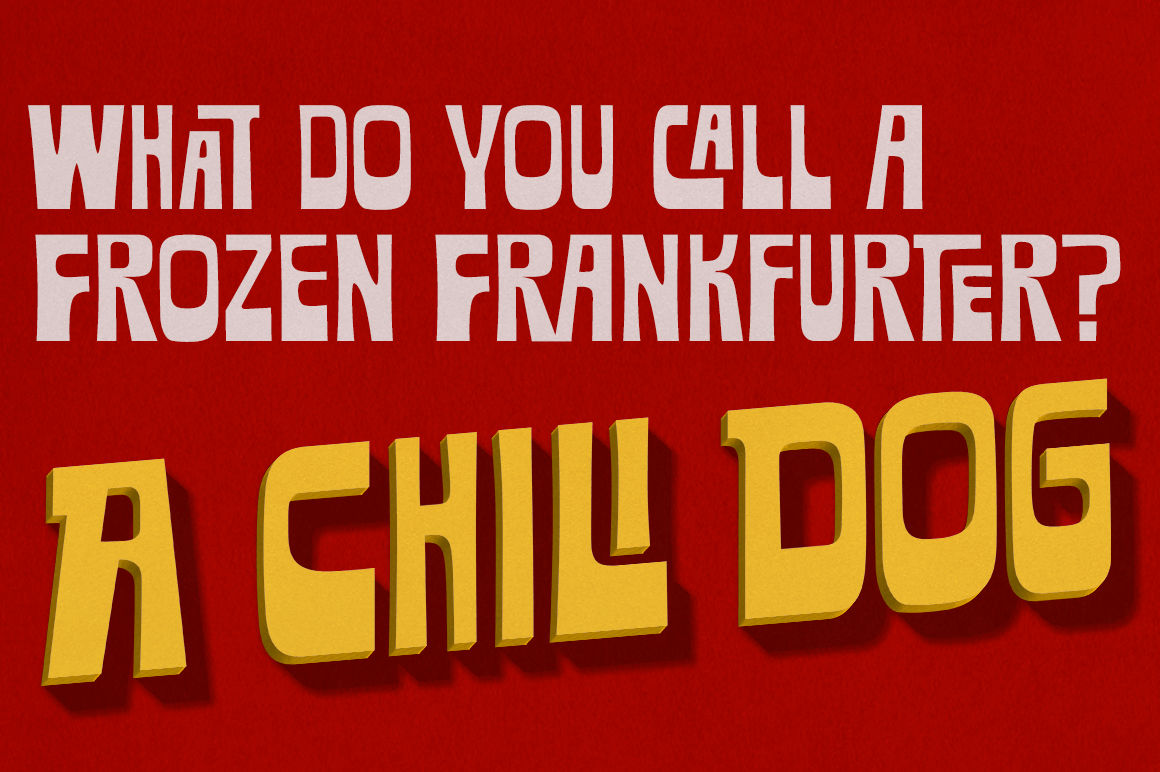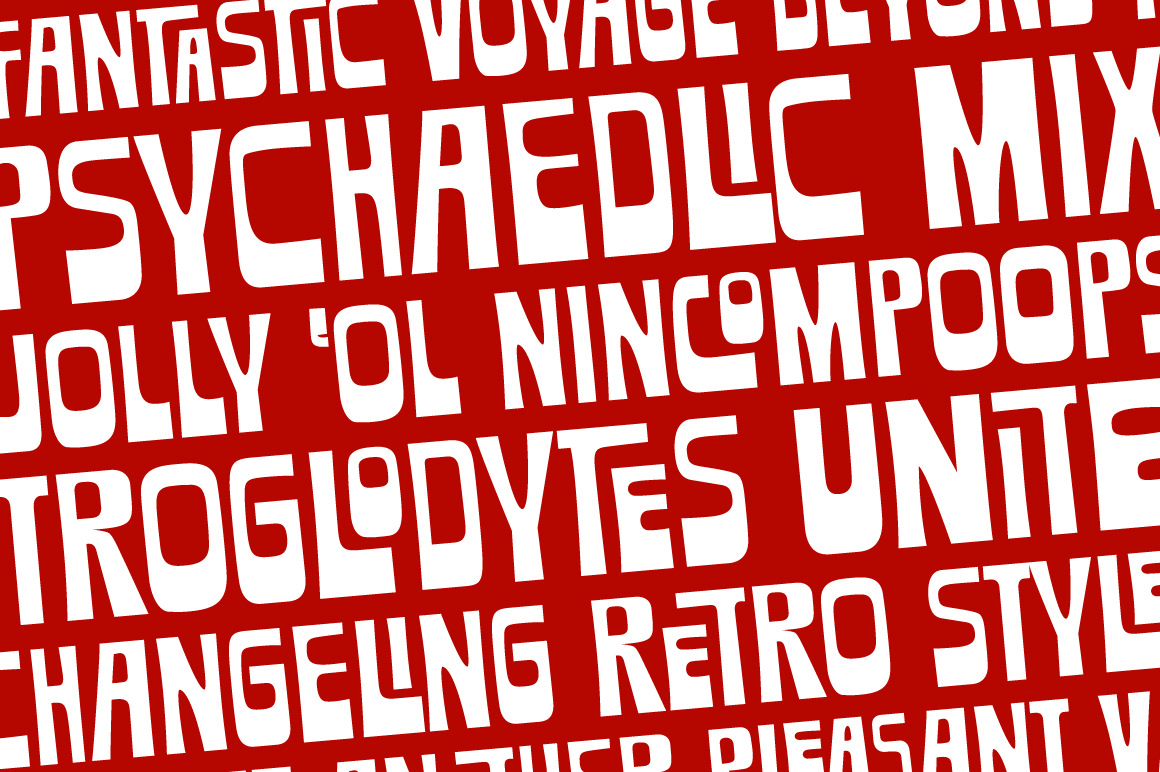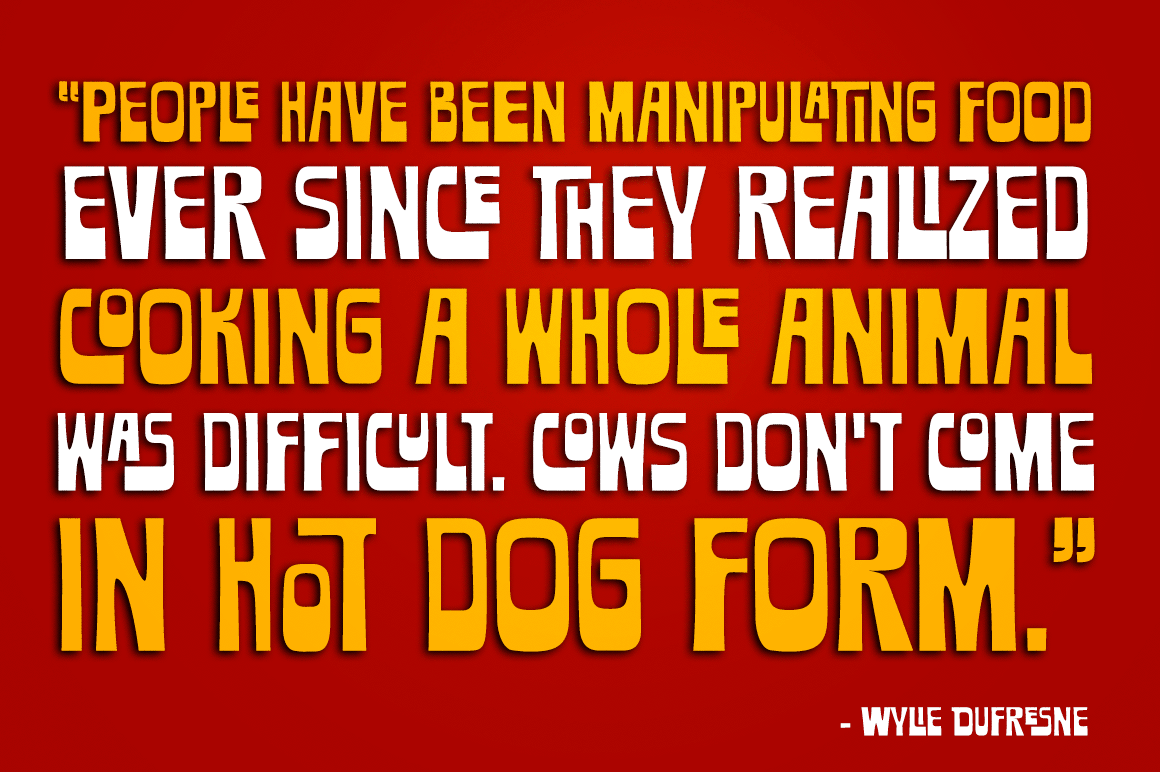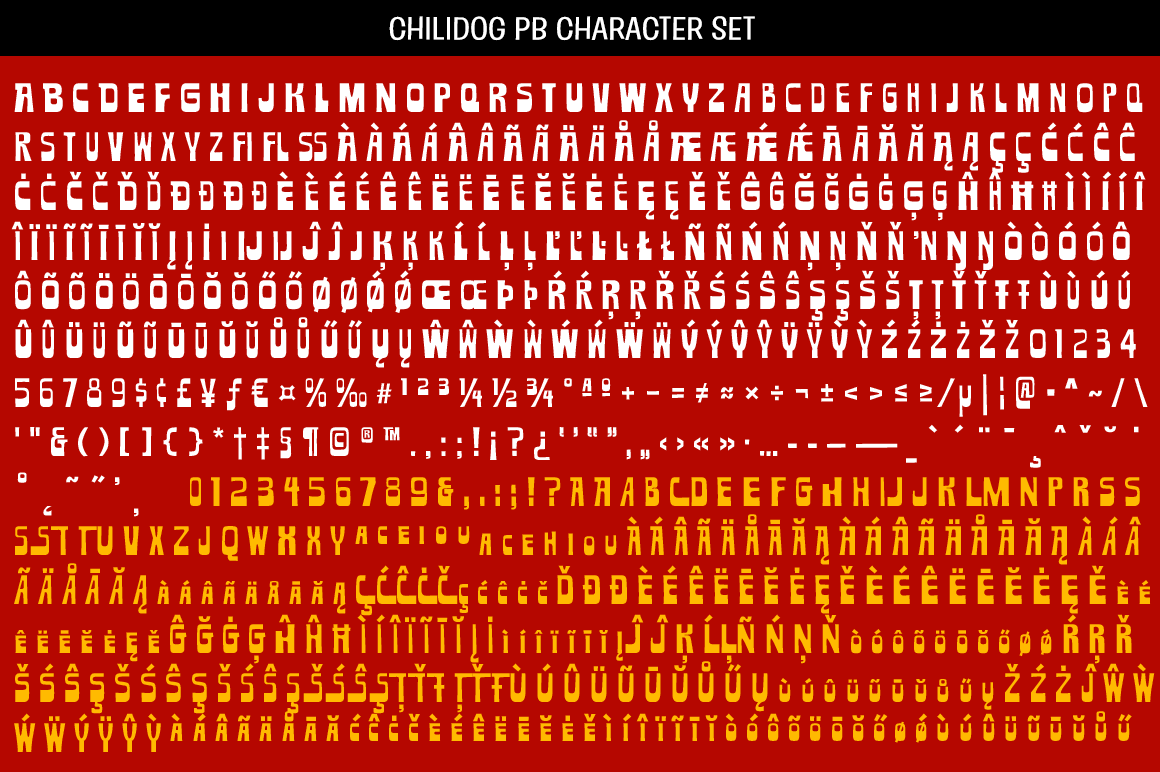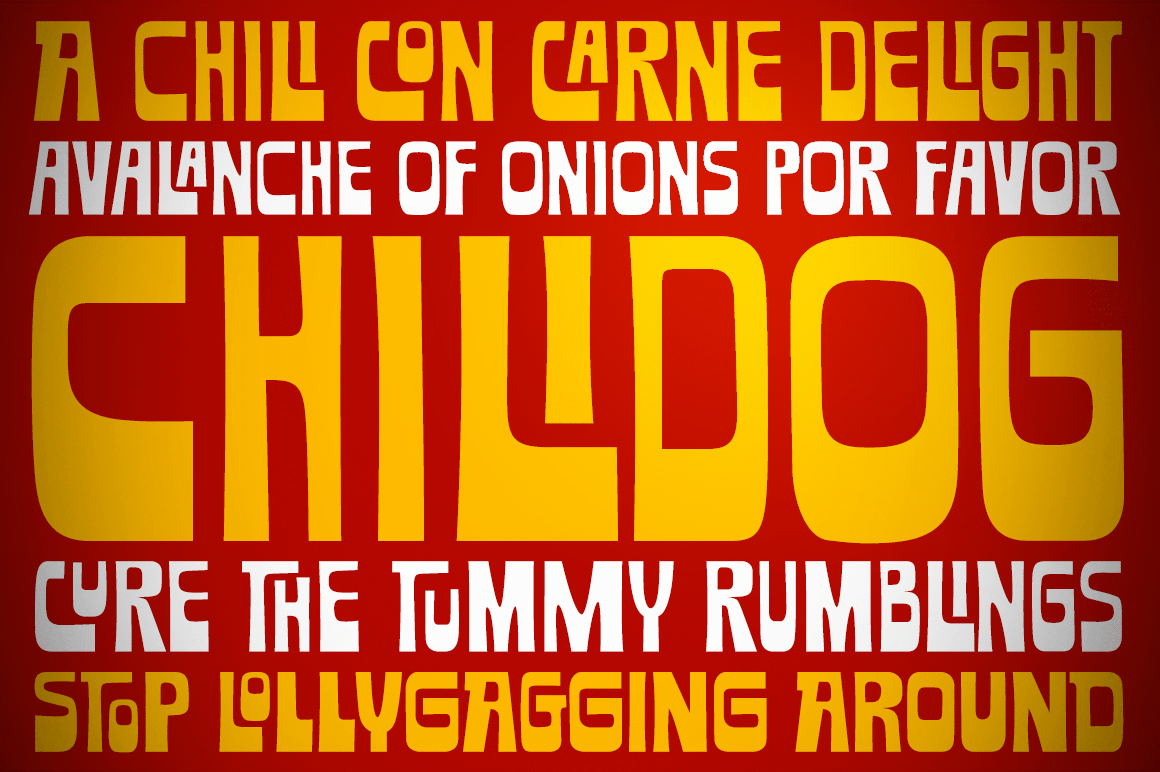
Chilidog PB
Looking for a real fun whack-a-doodle typestyle? You may have just found your match with the Chilidog PB typeface. Chilidog PB began as a digitization of the film typeface called Nectar by LetterGraphics. This font is filled with irregular shapes, shifting…